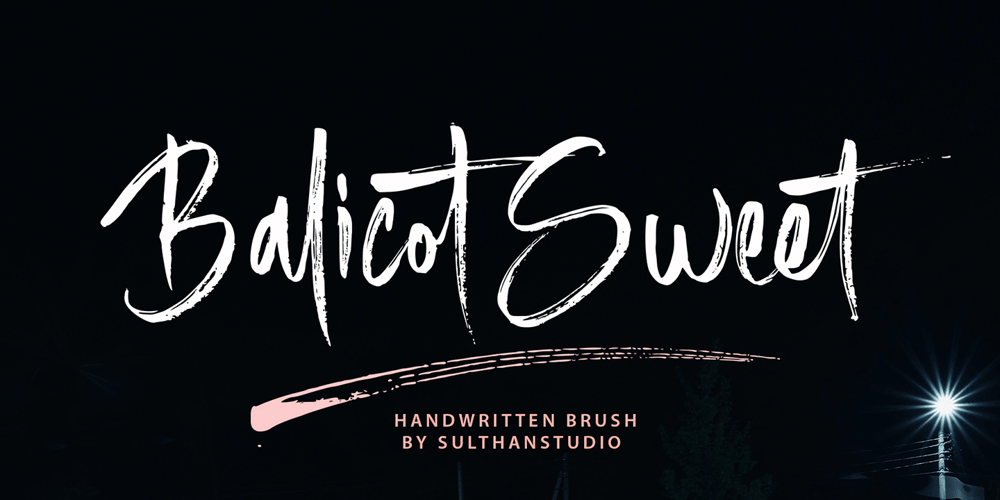
Balicot Sweet Font Family was designed by Nasrullah and published by Sulthan Studio. Balicot Sweet contains 2 styles and family package options. IntroducingBalicot Sweet! A natural, Handwritten brush font that is written quickly like a signature .Balicot sweet is also very attractive with a fresh look; provide stylish scripts that are guaranteed to add traction to your logo designs, brand image, handwritten quotes, product packaging, merchandise & social media posts.Including alternative characters. Coded with Unicode PUAThanks for viewing 🙂